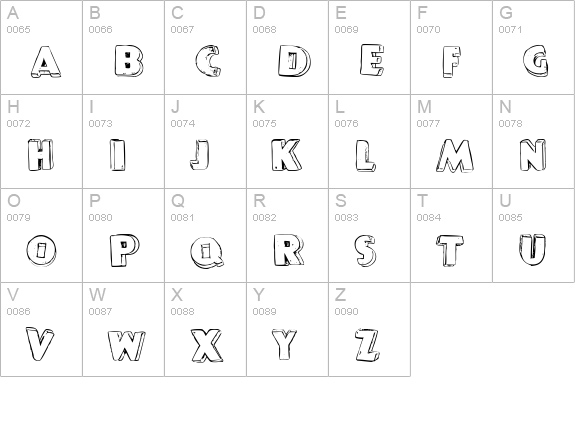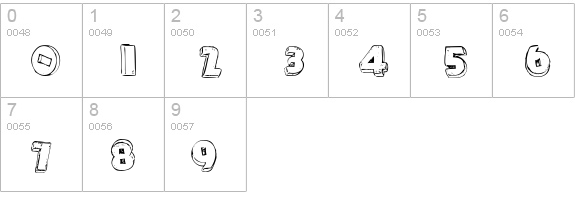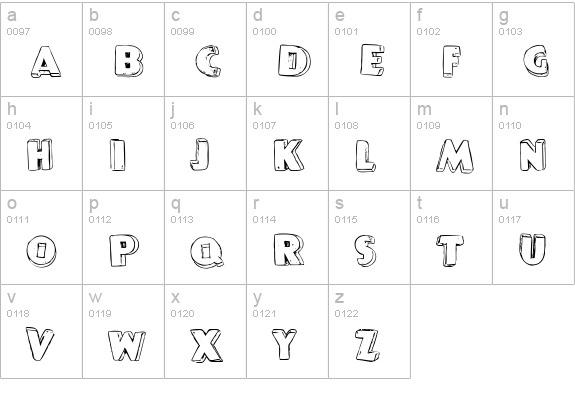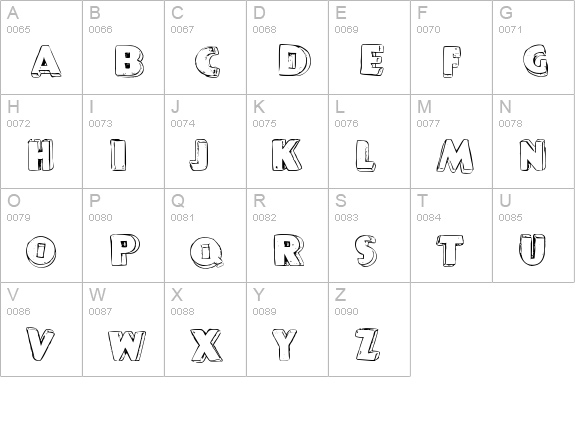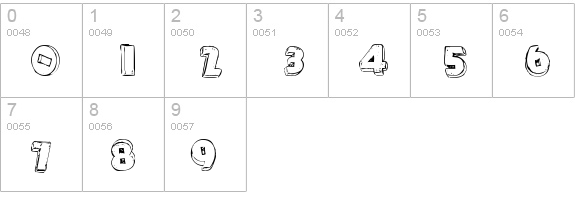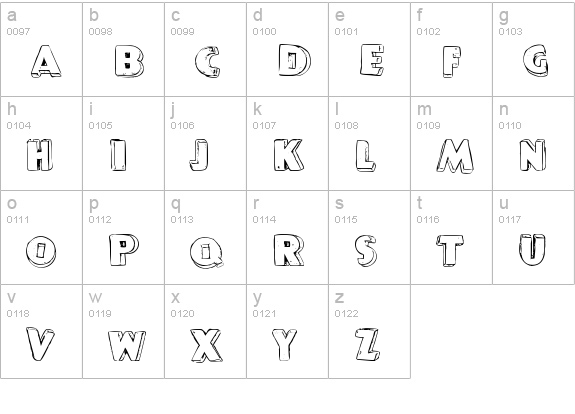
P22 Pop Art Three D Font Details
P22 Pop Art Three D font is a vibrant and dynamic typeface that effortlessly captures the essence of the iconic Pop Art movement. With its bold, three-dimensional letterforms, this font is a true celebration of the vibrant and playful spirit that defined the art movement of the 1960s. Each letter in P22 Pop Art Three D font is meticulously crafted to create a visually striking effect. The three-dimensional design adds depth and dimension to the characters, making them pop off the page or screen. The bold and chunky letterforms exude a sense of energy and excitement, making this font perfect for eye-catching headlines, posters, and advertisements. What sets P22 Pop Art Three D font apart is its versatility. Whether you're looking to add a touch of retro flair to your designs or create a bold and contemporary look, this font has got you covered. Its unique combination of playful charm and modern aesthetics make it suitable for a wide range of design projects. And the best part? P22 Pop Art Three D font is available for free! You can easily download this font from FontsMarket.com, a trusted source for high-quality fonts. With just a few clicks, you can bring the vibrant and energetic spirit of Pop Art into your designs without spending a dime. So why wait? Download P22 Pop Art Three D font today and let your creativity soar. Whether you're designing a poster, a logo, or a website, this font will add a touch of artistic flair that is sure to make a lasting impression. Get ready to embrace the bold and vibrant world of Pop Art with this incredible font.